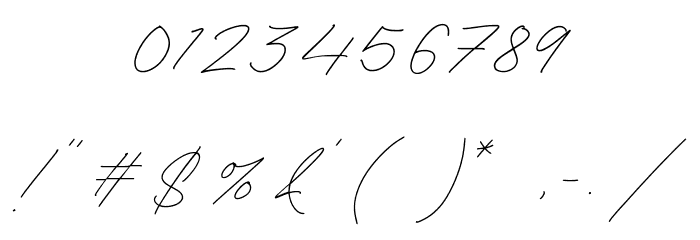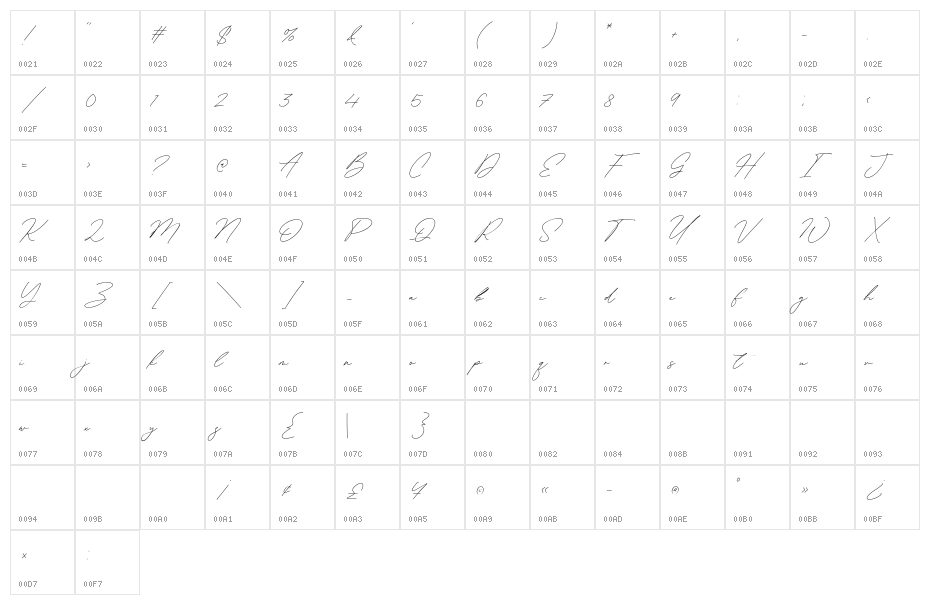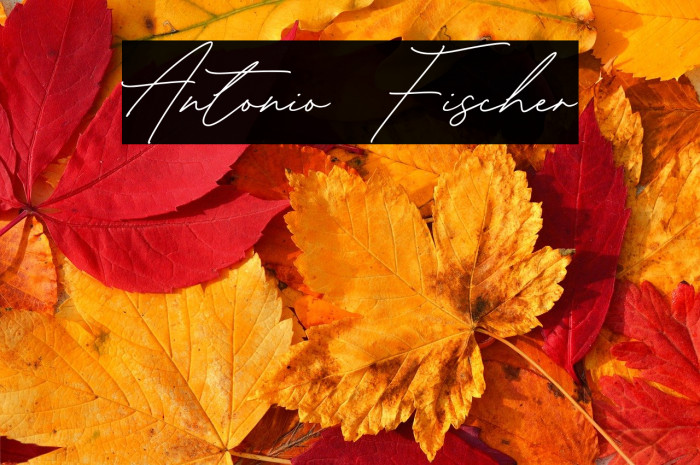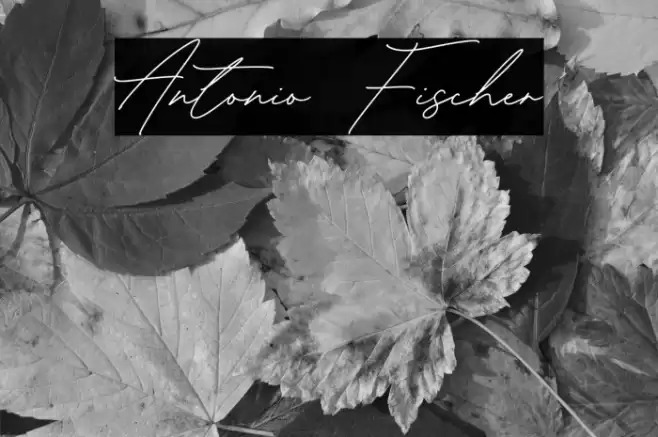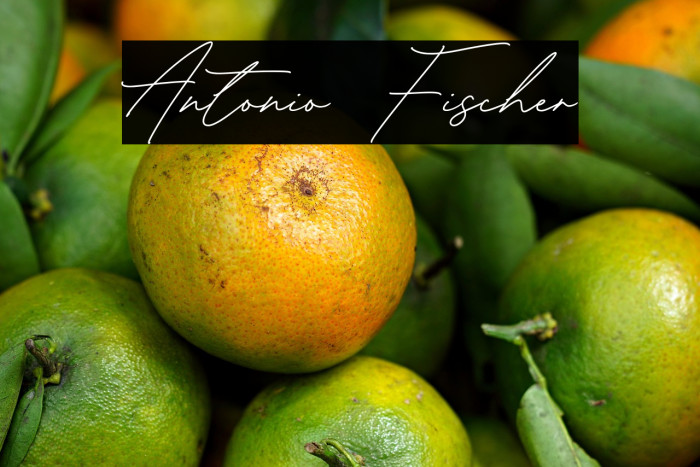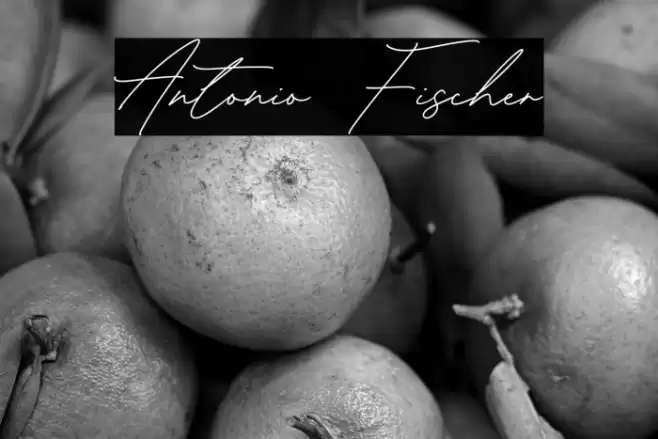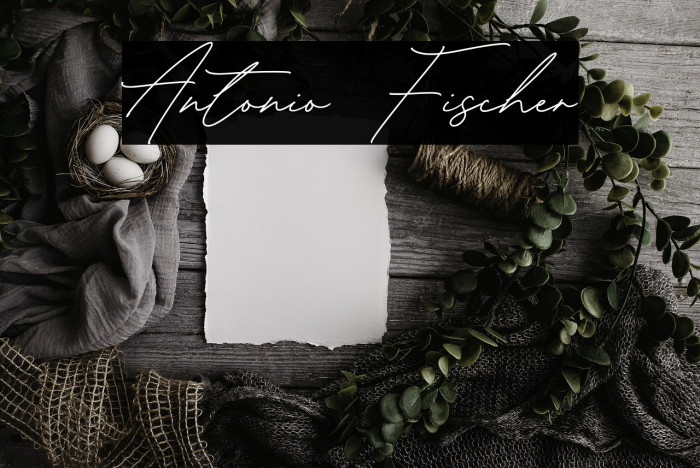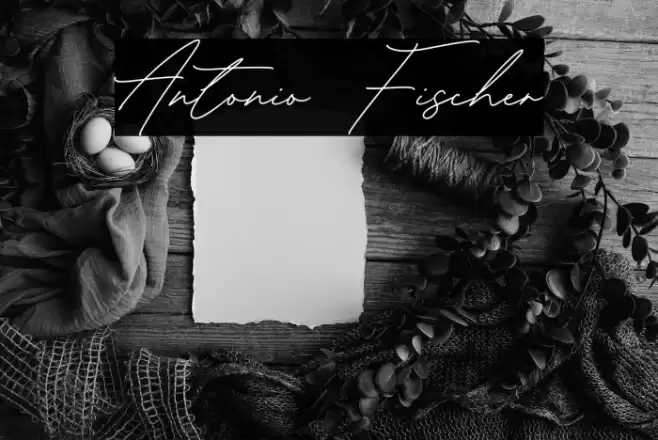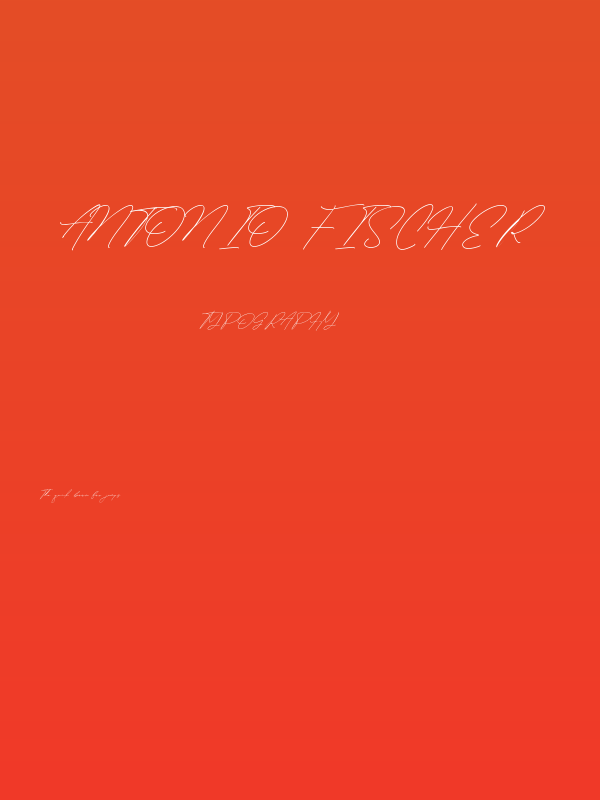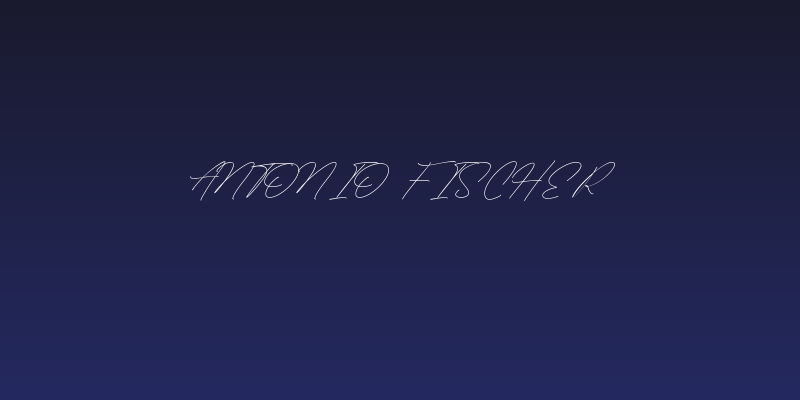
Antonio Fischer Font
Antonio Fischer Description
This elegant script font features a flowing, cursive style with a handwritten appearance. The letters are connected, creating a seamless and fluid look. The strokes are thin and delicate, giving it a refined and sophisticated feel. The uppercase letters are slightly larger and more ornate, while the lowercase letters maintain a consistent flow. Numbers and special characters are designed to match the overall aesthetic, with a graceful and stylish presentation. This font is perfect for adding a touch of elegance and class to any design project.